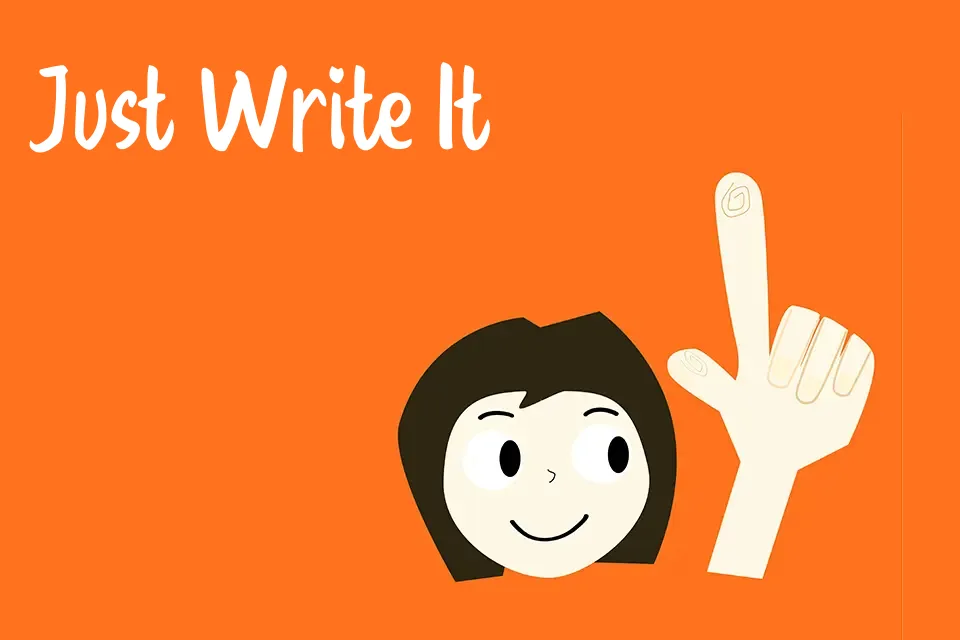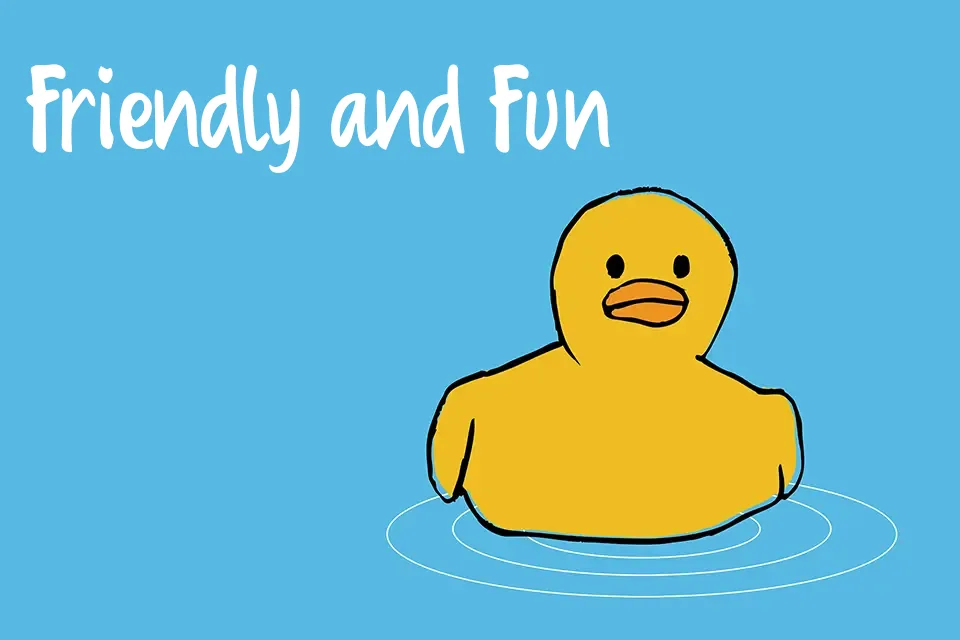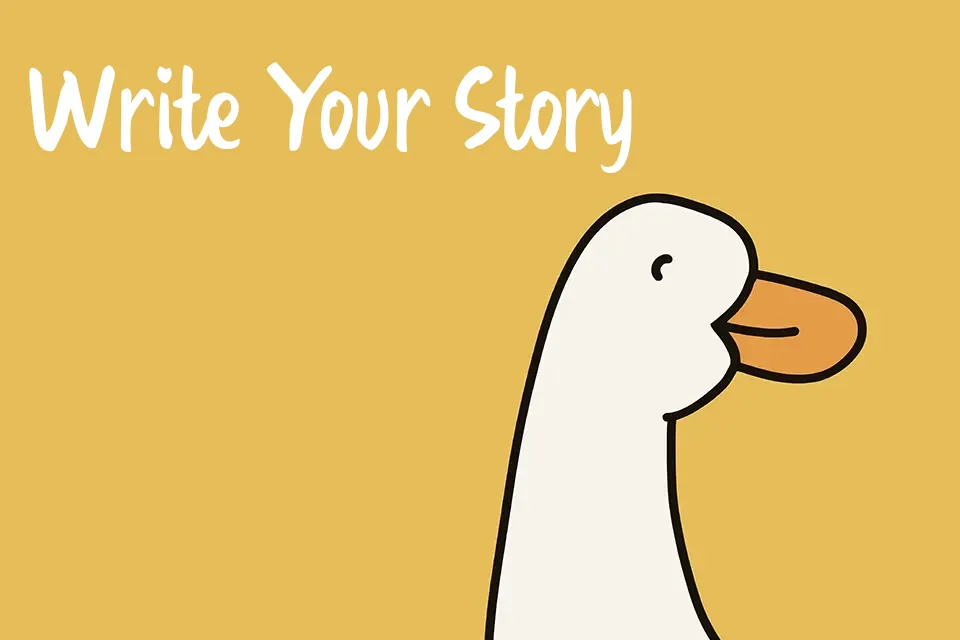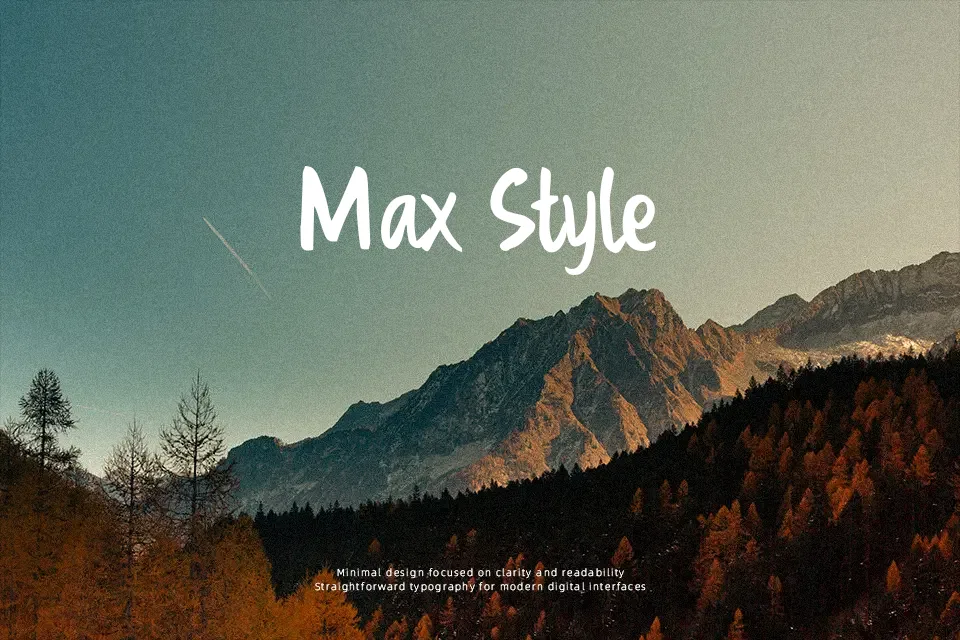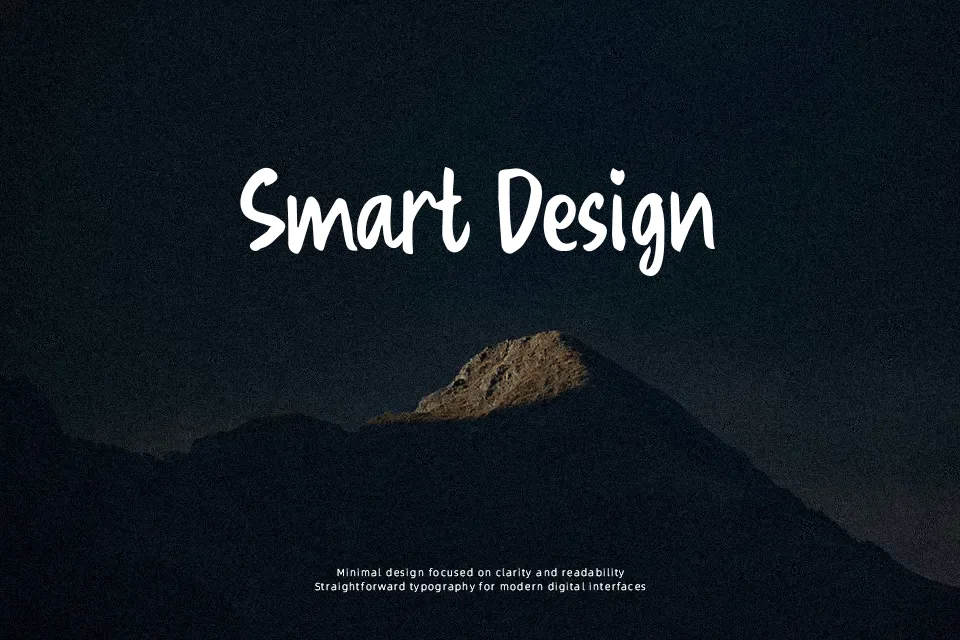
OraRet Font
OraRet Font delivers an informal display aesthetic marked by energetic, hand-drawn strokes and organic letterform geometry. The design features thick stroke weights with subtle contour irregularities, creating an approachable visual rhythm across compact headers and branding marks. Wide proportions and generous spacing maintain letter recognition across medium and large display settings, though the heavily stylized character shapes reduce legibility in continuous paragraphs or dense editorial blocks. The typeface functions best as a decorative focal point where its animated curves can establish an engaging presence.
comic book cover titles
children book headers
casual apparel graphics
playful snack packaging
continuous reading body text
technical manual documentation
legal agreements and contracts
compact smartphone system menus
Perfect for branding, headline, and kids, with a creative and comic style.